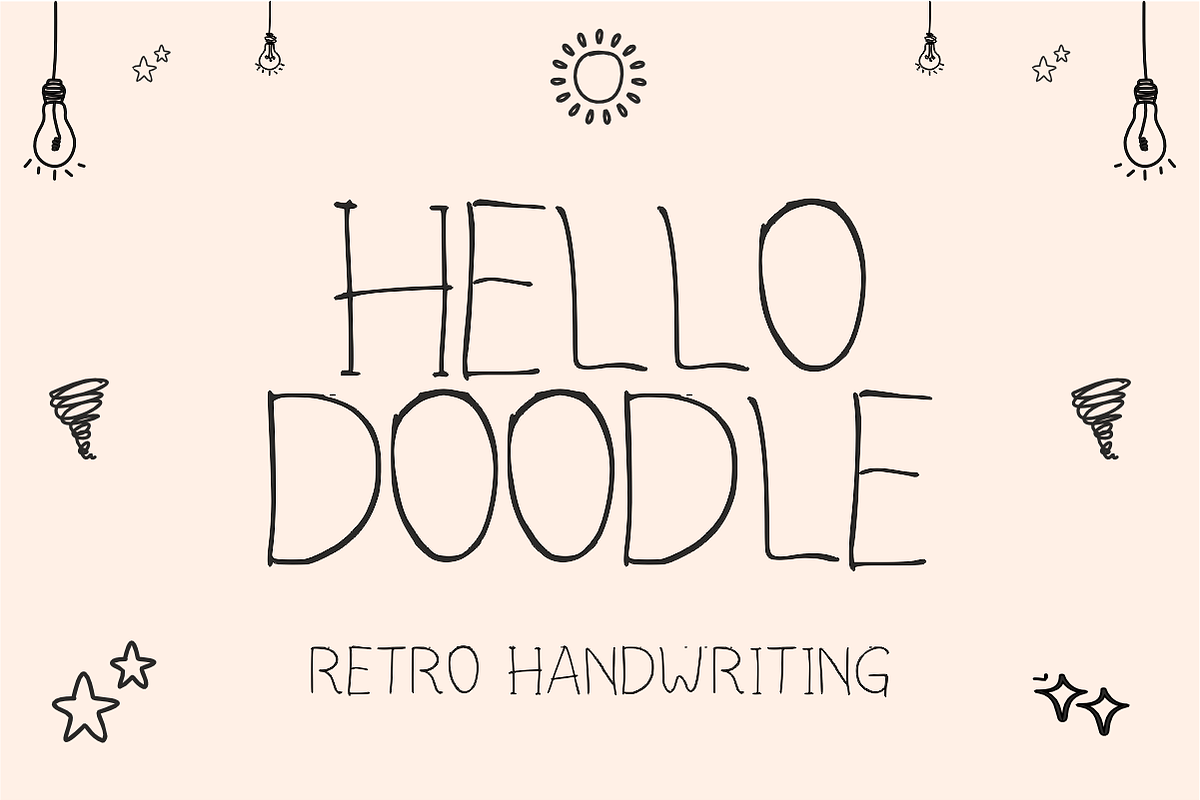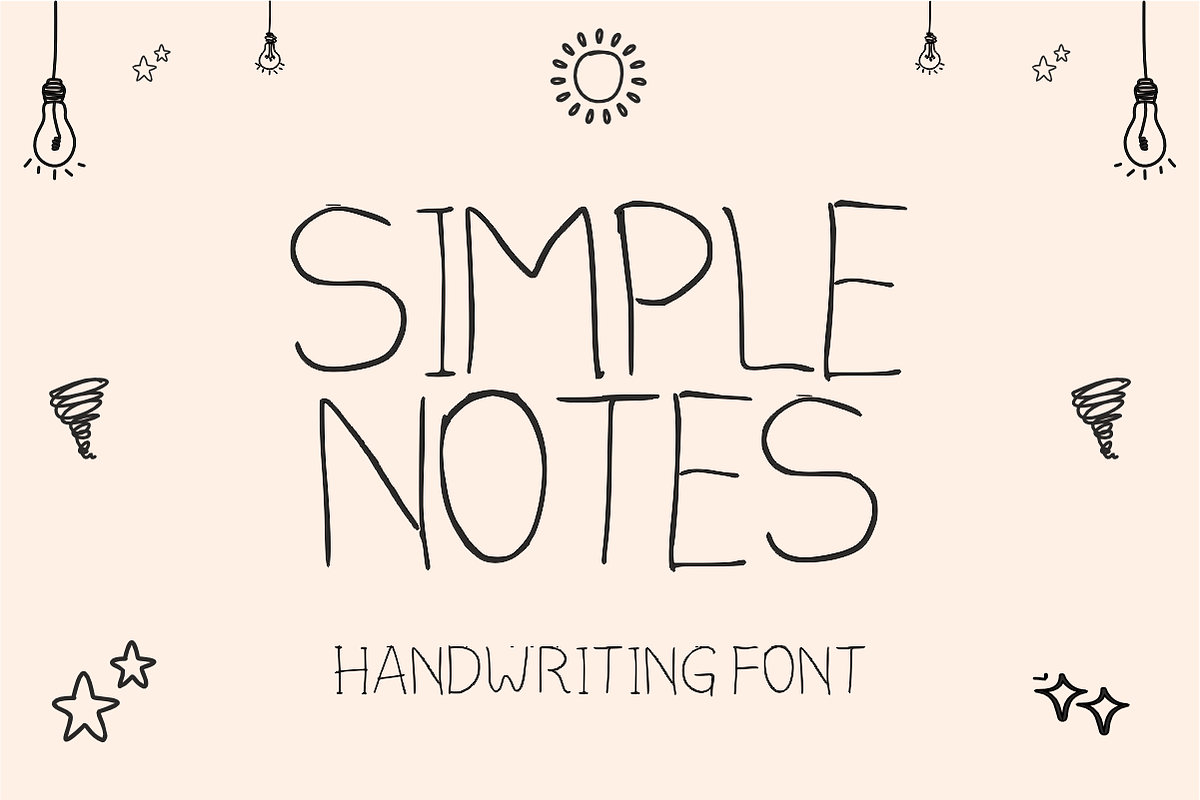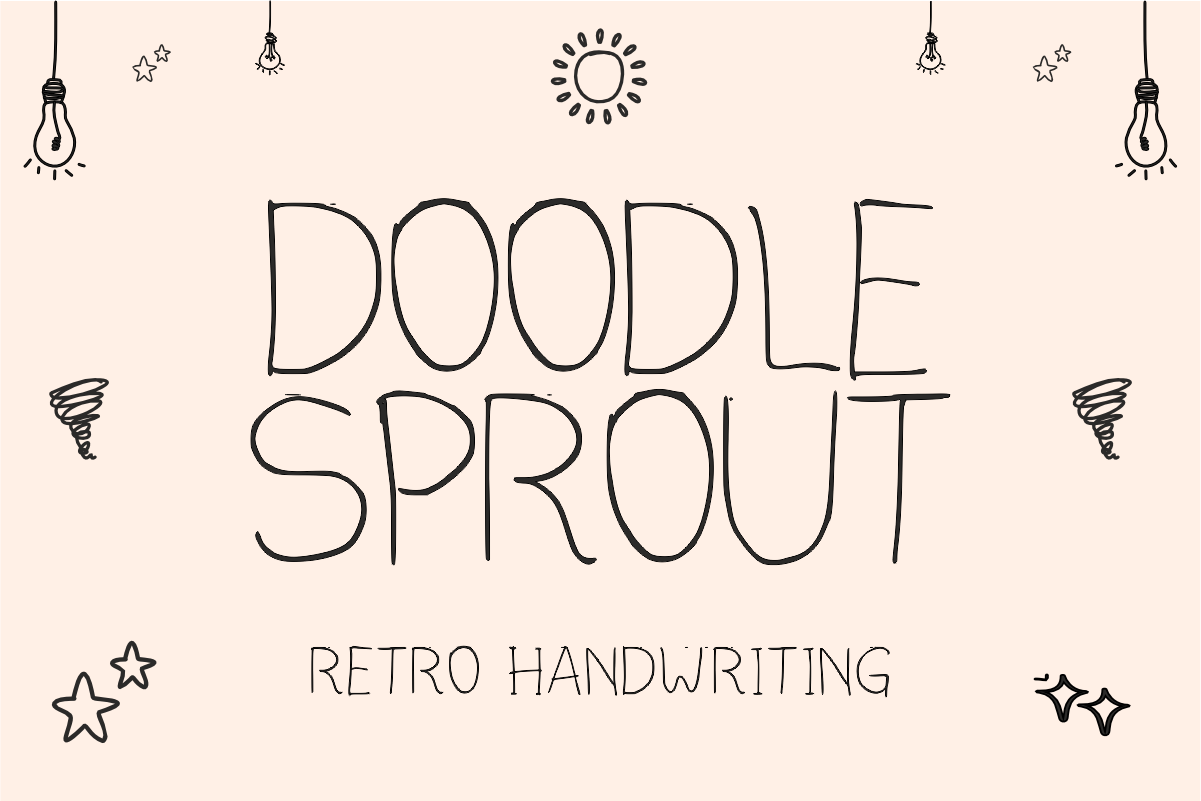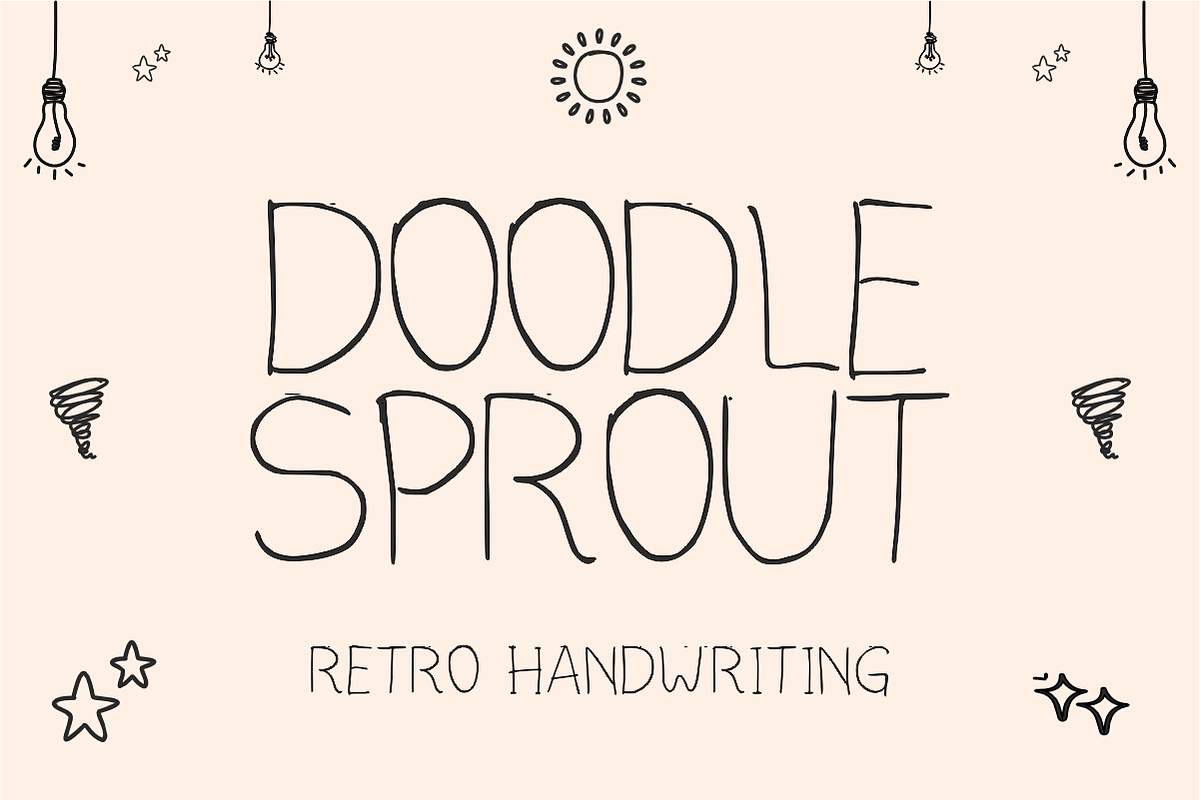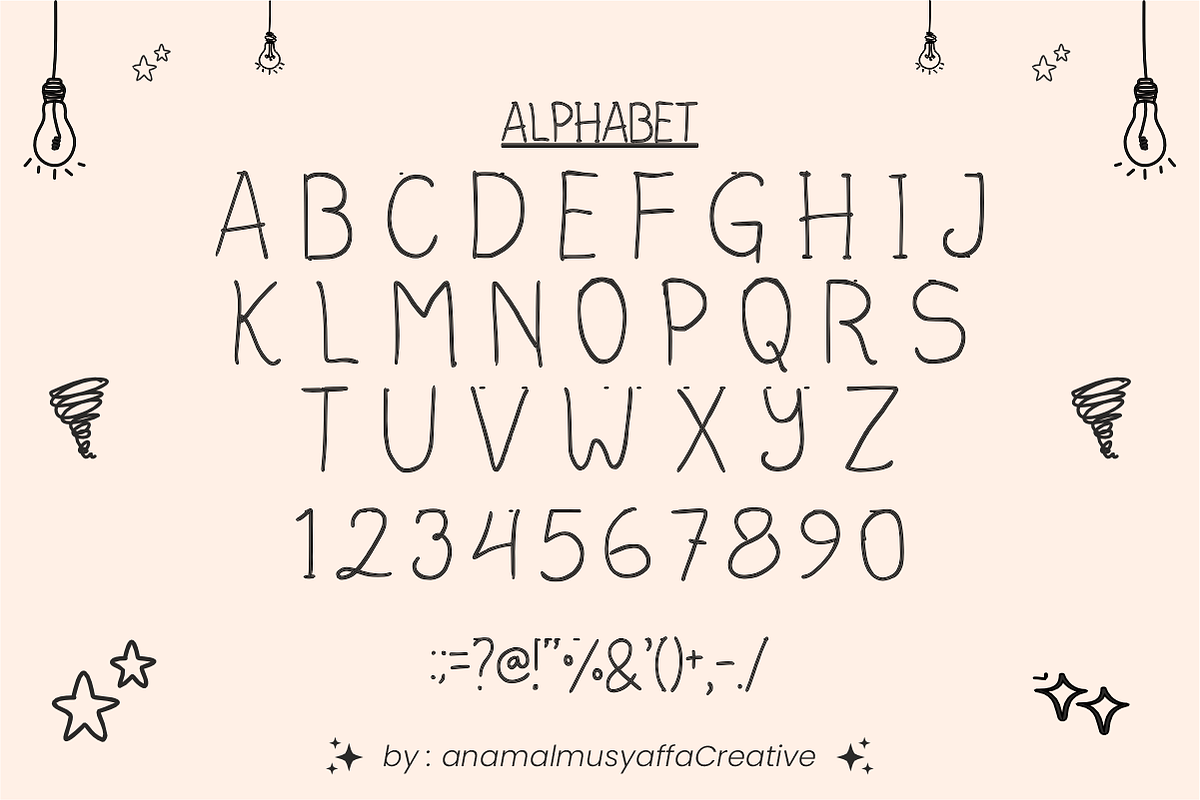
Doodle Sprout - Handwritten Font
Doodle Sprout - Retro Handwritten Display Font
Embrace nostalgia and handcrafted charm with Doodle Sprout! Showcasing an authentic "Retro Handwriting" aesthetic, this tall, skinny monoline font features casual, organic letterforms that bring an instant sense of warmth, whimsical fun, and personality to your text.
Perfect for educators, casual crafters, and cozy branding, Doodle Sprout beautifully pairs a quirky, hand-drawn ink look with absolute legibility. It is highly versatile, effortlessly charming, and fully optimized for seamless performance across premium digital cutting tools and professional print layouts.
All-Caps Character Set (Tall, quirky, and skinny handwritten uppercase letters)
Numbers & Basic Punctuation (Essential, simple symbols included)
Teacher Resources, School Worksheets, & Classroom Posters 🎒
Cricut, Silhouette, & DIY Craft Sublimation Projects ✂️
Boho & Retro Branding, Logos, & Instagram Quotes 🌻
Children's Book Covers, Greeting Cards, & Cute Stickers 📚
Product Packaging, Cafe Menus, & Whimsical Merchandise Prints 🏷️